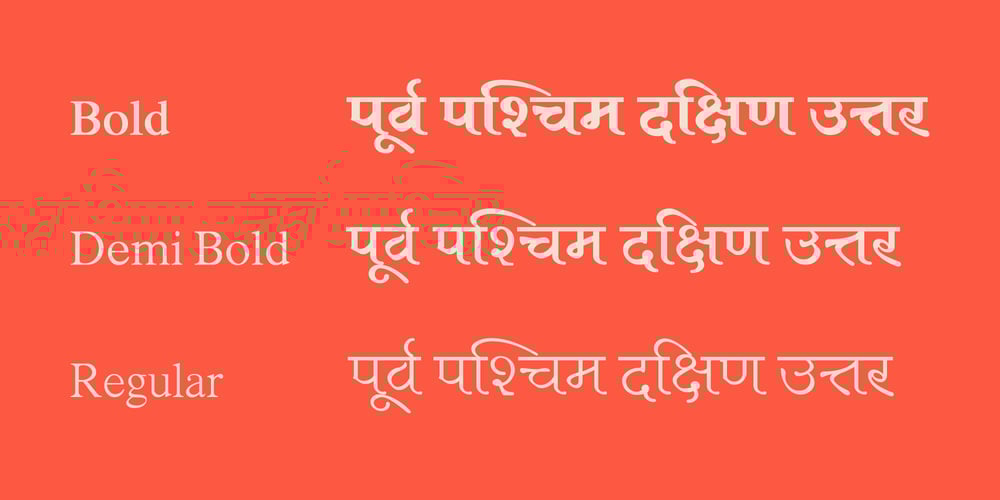
Shree Devanagari 0993 Font Family was designed by Modular Infotech and published by Modular InfoTech. Shree Devanagari 0993 contains 3 styles and family package options. ShreeDev0993 is a font designed for banners, book covers, Posters and advertising. This font family offers three weights: Regular, Medium, and Bold. It is well-suited for creating visually appealing book covers, magazines, and invitation materials.